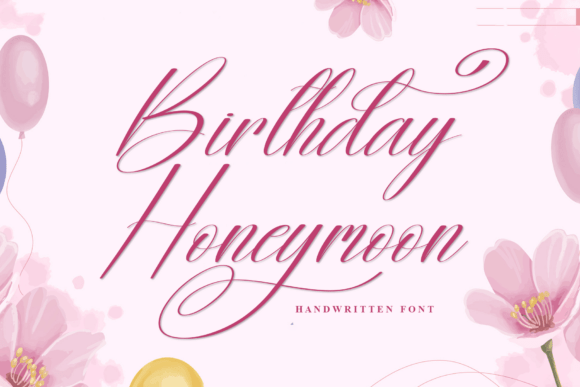
The Birth of a Perfect Font: My Encounter with Birthday Honeymoon Font
I still remember the time I was working on a wedding invitation project, and my client asked for a font that exuded warmth, friendliness, and a touch of whimsy. I scoured the internet, tried out countless fonts, but none seemed to fit the bill. That was until I stumbled upon the Birthday Honeymoon Font. It was love at first sight! ✨
This charming handwritten display font radiates warmth and friendliness, making it a perfect match for designs that require a playful touch. In this article, I’ll share my experience with the Birthday Honeymoon Font, its features, and how to make the most of it in your designs.
• ✨ Playful and Whimsical: The Birthday Honeymoon Font is perfect for designs that need a touch of playfulness, such as wedding invitations, greeting cards, or social media graphics.
• ✅ Easy to Read: Despite its whimsical nature, the font is surprisingly easy to read, even at smaller sizes.
• 💕 Emotional Connection: The font has a way of evoking emotions and creating a connection with the reader, making it perfect for designs that require a personal touch.
While the Birthday Honeymoon Font is amazing, there are a few things to keep in mind: 🤔
• ⚠️ Limited Use Cases: The font is best suited for display purposes, such as headings or titles. It may not be the best choice for body text or longer paragraphs.
• ⚠️ Glyph Limitations: Some users have reported that the font’s glyph set is limited, which may affect its use in certain design projects.
A Practical Guide: Using Birthday Honeymoon Font in Your Designs
4. Experiment with the font’s OpenType features, such as stylistic alternates, to add more personality to your design.
The Designer Inspiration Behind Birthday Honeymoon Font
The Birthday Honeymoon Font was created with the intention of capturing the warmth and joy of special occasions. The designer wanted to create a font that would evoke feelings of happiness and celebration, making it perfect for wedding invitations, birthday cards, and other celebratory designs.
Q: What is the Birthday Honeymoon Font best suited for?
A: The Birthday Honeymoon Font is best suited for display purposes, such as titles, headings, or invitations.